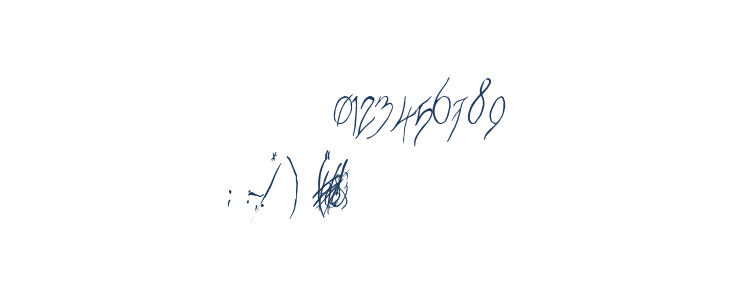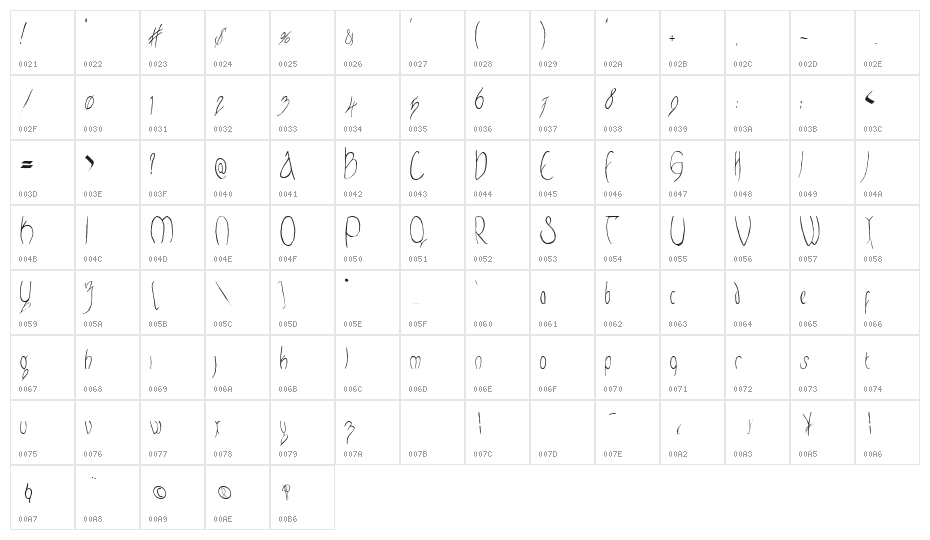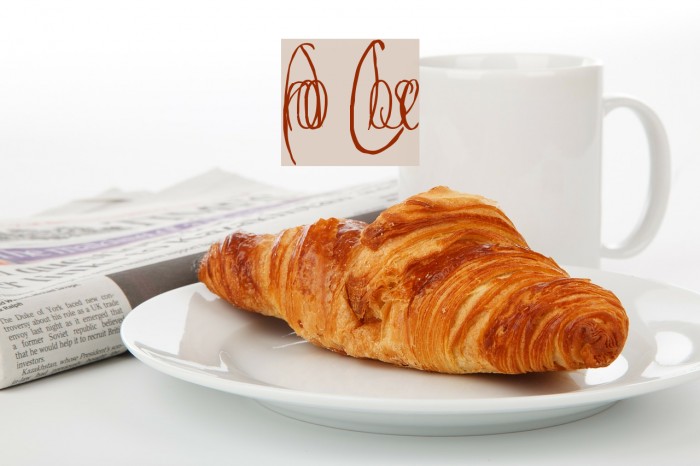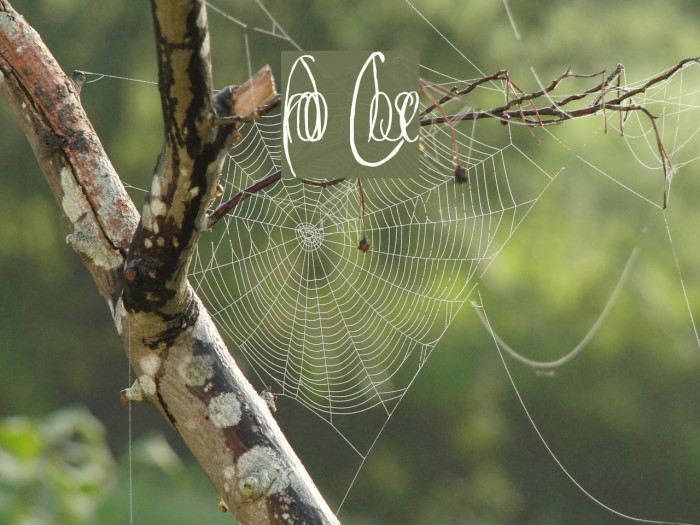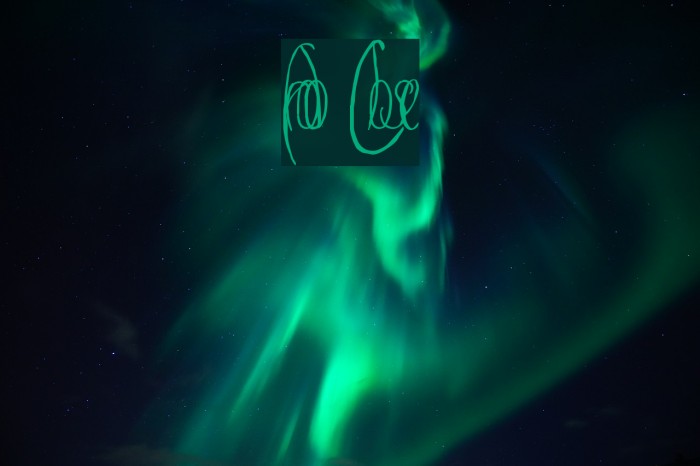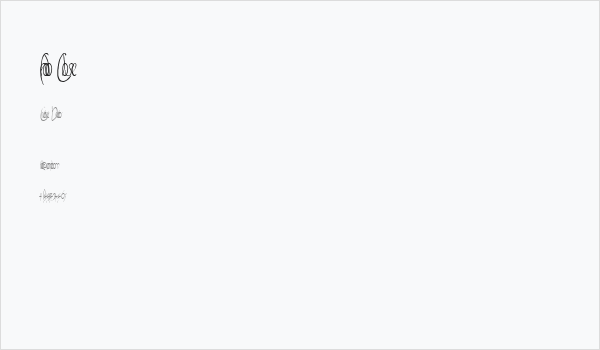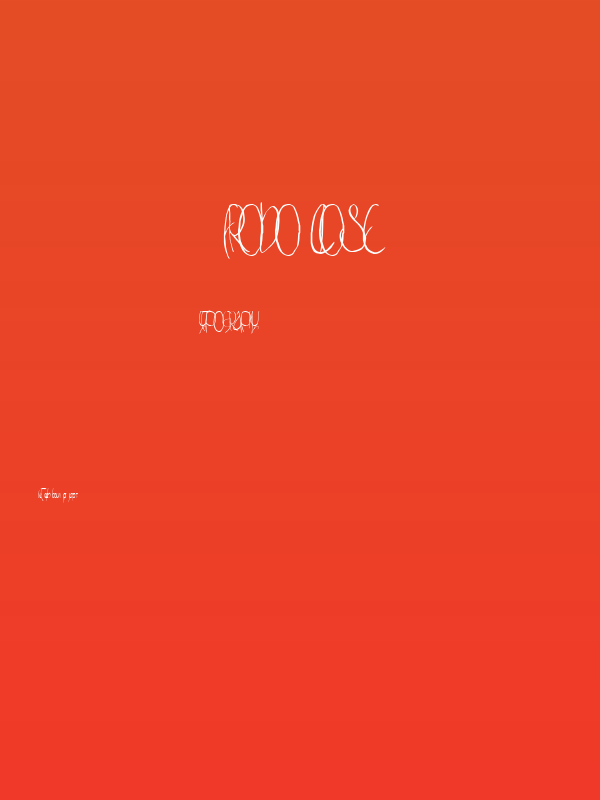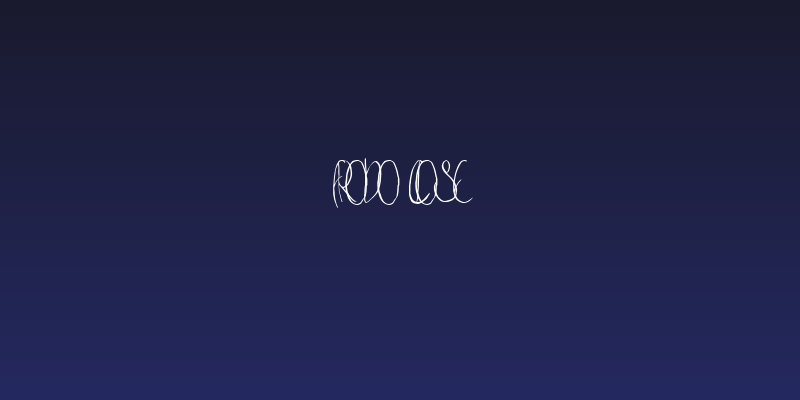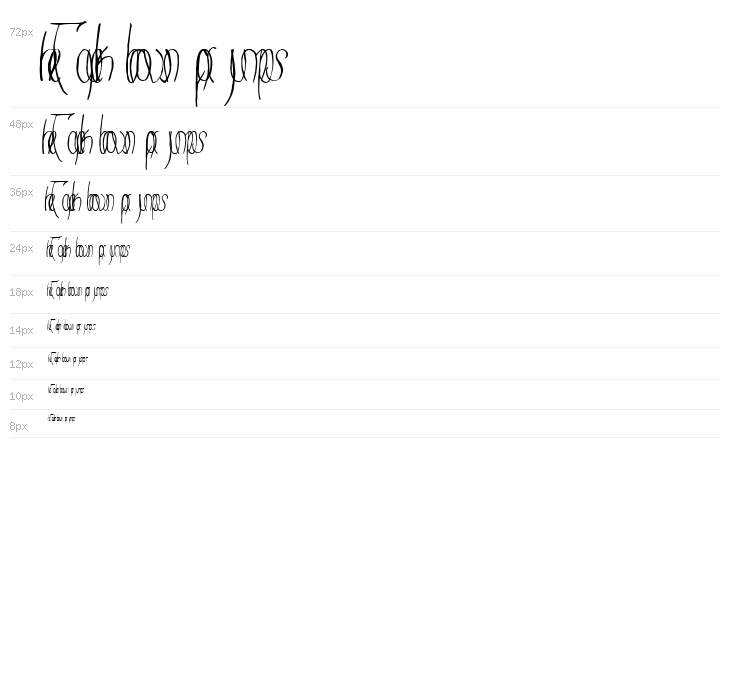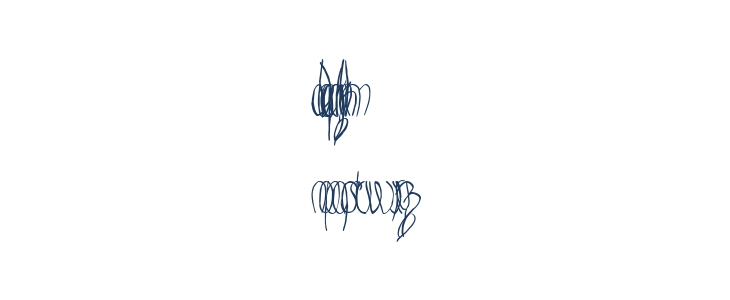
Frodo Close Font
Frodo Close Description
This font features an intricate and highly decorative style with elongated, swirling strokes that create an almost calligraphic appearance. The letters are interconnected with loops and curves, giving it a whimsical and artistic flair. The uppercase and lowercase characters maintain a consistent style, with a focus on elaborate design rather than readability. Numbers follow the same ornate pattern, making them stand out with their unique shapes. Special characters are equally stylized, adding to the overall decorative nature of the font. This font is not suited for body text due to its complexity but can be a striking choice for artistic projects.
| Use Case | Logos, Artistic projects, Decorative headings |
| Proposed Projects | Ideal for artistic designs, invitations, posters, and decorative headings. |